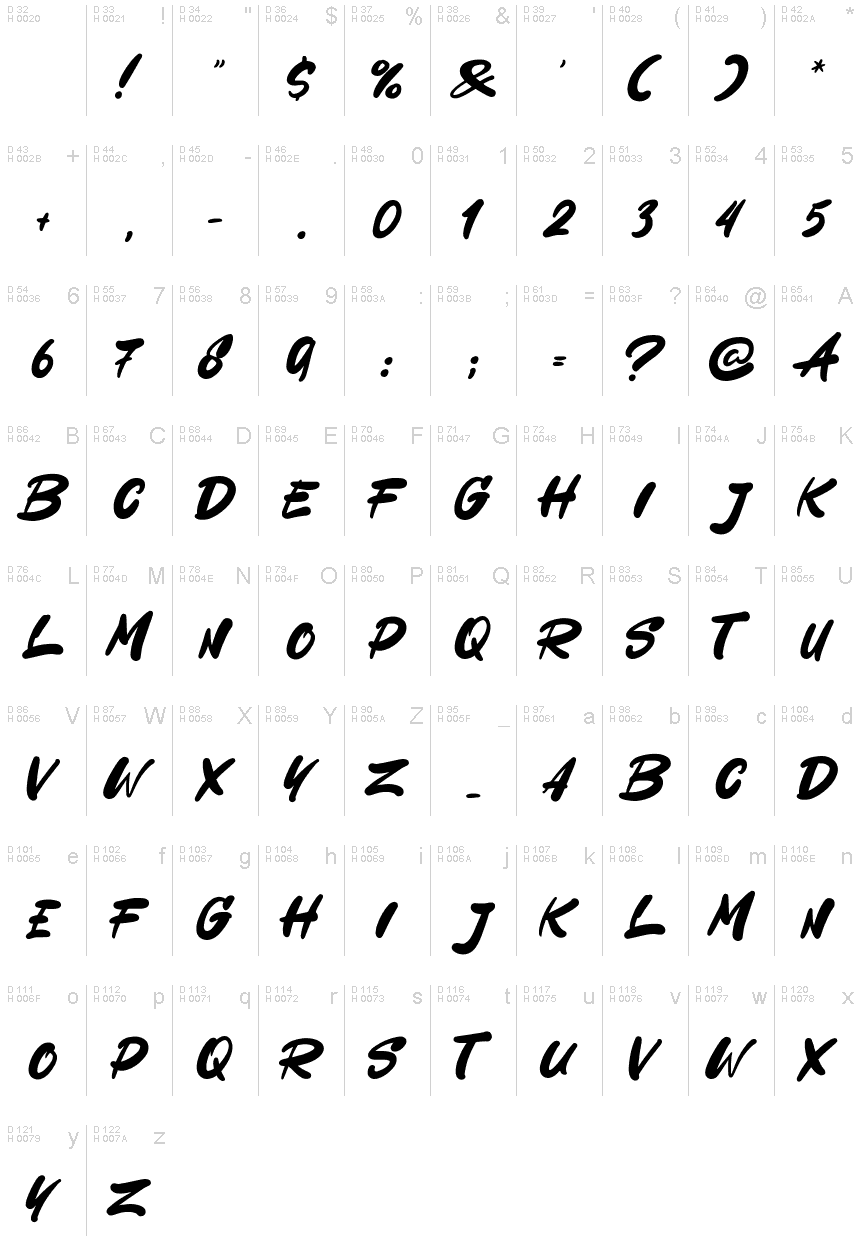
Autodex
Autodex is a bold, modern brush font designed by Khurasan that will add a touch of sophistication and elegance to your projects. With its strong strokes and fluid curves, this typeface is perfect for creating attention-grabbing headlines or adding a personal touch to your creative designs. Its bold weight makes it ideal for logos, branding materials, and packaging designs. Autodex can also be used to create striking social media graphics or eye-catching posters that demand attention. This versatile font is suitable for any project where you want to make a bold statement with your typography.